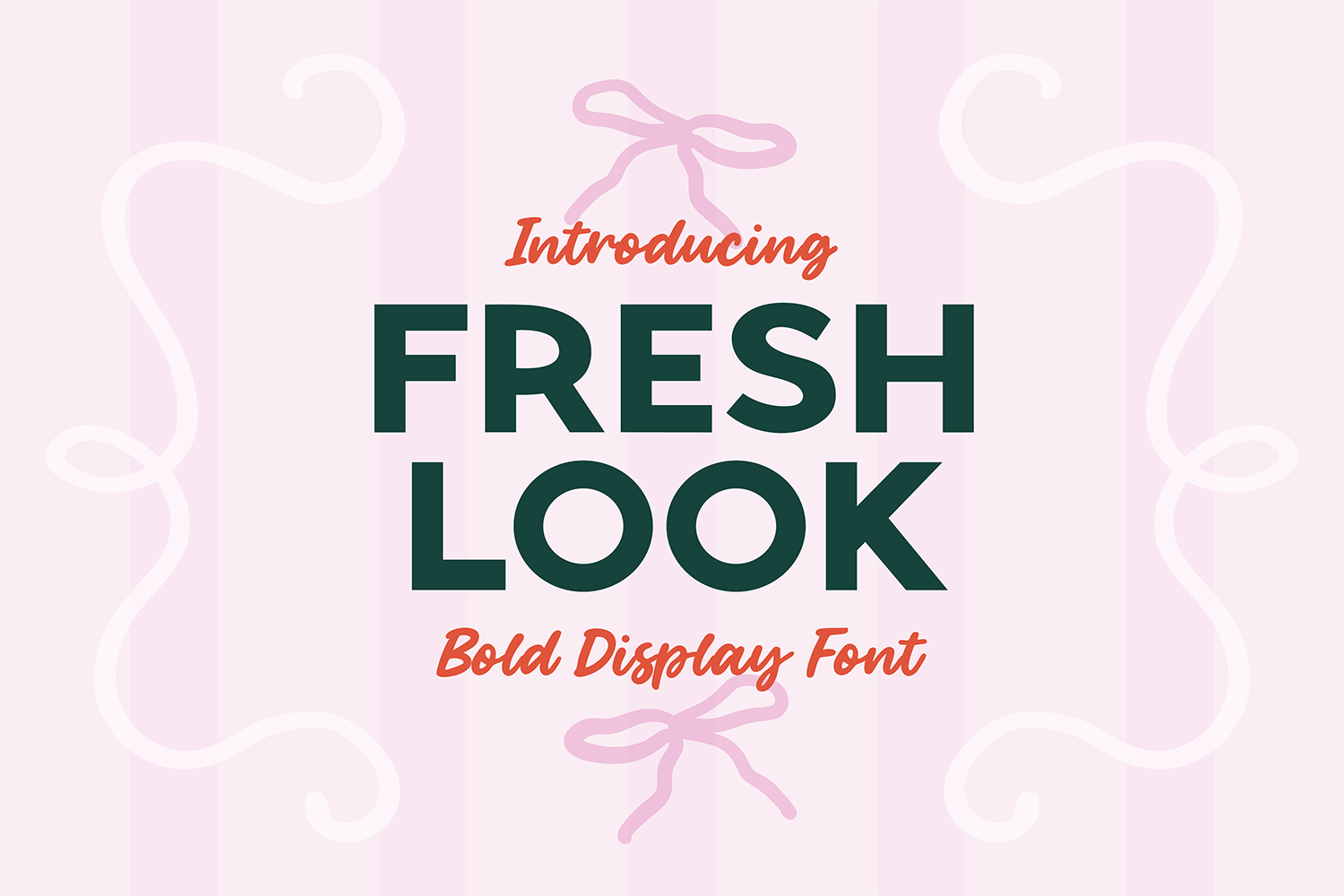
"FRESH LOOK" a stylish and chunky block font.
This font is a bold display font that is perfect for social media or crafty projects. Use it for branding, crafts for decor, invitations, and more! Use in Canva pro, cricut, social media, capcut, and more.